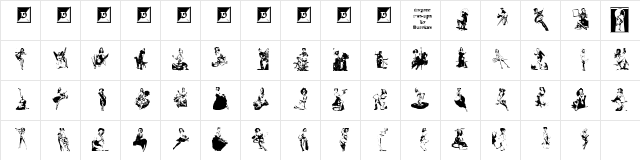
Elvgren Pin-ups Regular
Design Context for Elvgren Pin-ups Typeface
Elvgren Pin-ups is a composed and adaptable typeface that performs quietly and consistently across a wide range of design contexts.